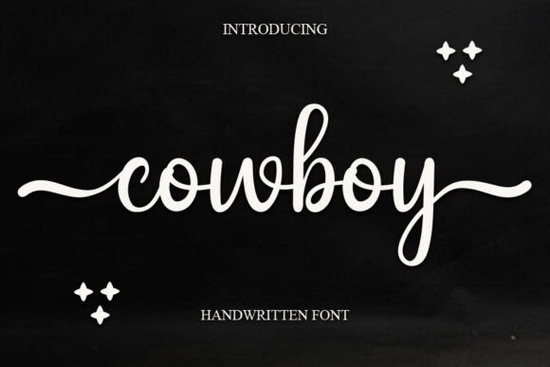
If you're looking for a handwritten script that feels both elegant and approachable, the Cowboy Font might be exactly what your next project needs. With its gentle curves and soft, flowing lines, this cursive typeface brings a joyful, romantic vibe without feeling overly formal. Whether you’re designing wedding invitations, branding materials, or greeting cards, Cowboy adds just the right amount of personality fancy but still casual.
What makes Cowboy Font stand out for creative projects?
Unlike rigid or overly ornate scripts, Cowboy Font strikes a balance between charm and readability. Its letterforms mimic natural handwriting, which gives your designs an authentic, handcrafted feel. This makes it especially useful for:
- Wedding stationery – think save-the-dates, place cards, and menus
- Small business branding – logos, packaging, or social media graphics
- Print-on-demand products – mugs, tote bags, or wall art with personalized messages
- Fashion lookbooks – where a touch of elegance enhances product presentation
Because it’s not too dramatic or stiff, it pairs well with clean sans-serif fonts for contrast, letting your main message shine while keeping the overall aesthetic warm and inviting.
How does it compare to other handwritten scripts?
If you’ve browsed Creative Fabrica’s script collection, you might already know fonts like Elemental Calligraphy, which leans more toward traditional calligraphy with sharp swashes. Or perhaps you’ve tried Sister, a bouncy, friendly script great for youthful designs. Cowboy sits comfortably between those styles less structured than Elemental Calligraphy, but more refined than Sister.
For those who prefer minimalism, fonts like Minimalist Font offer ultra-clean lines, while American Cowboys leans into rustic, western-inspired lettering. Cowboy doesn’t go full theme it’s versatile enough for everyday elegance. And if you love duos that combine print and script, Sacred Notes Duo offers a complementary pairing, though Cowboy works beautifully on its own.
Who should use Cowboy Font?
This font is ideal for creators who want warmth without fuss. If you run a small Etsy shop selling custom cards, design branding for local boutiques, or create digital templates for Canva users, Cowboy’s friendly elegance can elevate your work without overwhelming it. Crafters using Cricut or Silhouette machines will appreciate how smoothly it cuts no tangled serifs or fragile strokes.
It’s also a solid choice for seasonal designs. Imagine Valentine’s Day quotes, spring wedding suites, or even holiday gift tags all benefit from a script that feels personal and heartfelt. Because it’s legible at medium sizes, it works well for both headlines and short body text (like quotes or captions).
Tips for using Cowboy Font effectively
- Avoid overuse. Like most scripts, it’s best used for accents, names, or short phrases not paragraphs.
- Pair it wisely. Try combining it with a neutral sans-serif like Montserrat or Lato for balance.
- Adjust letter spacing slightly if your software allows it can improve readability in all-caps or tight layouts.
- Test print quality. Some delicate scripts lose detail when printed small; Cowboy holds up well, but always do a proof print for physical products.
Remember: the goal isn’t to make your design “look fancy” it’s to communicate warmth and sincerity. Cowboy helps you do that quietly, without shouting.
- Is my project meant to feel personal or emotional? (If yes, Cowboy fits.)
- Will the text be short and prominent? (Ideal for this style.)
- Do I need a font that’s easy to read at 12–18 pt? (Cowboy performs well here.)
If you answered “yes” to most of these, Cowboy Font could become a go-to in your creative toolkit.